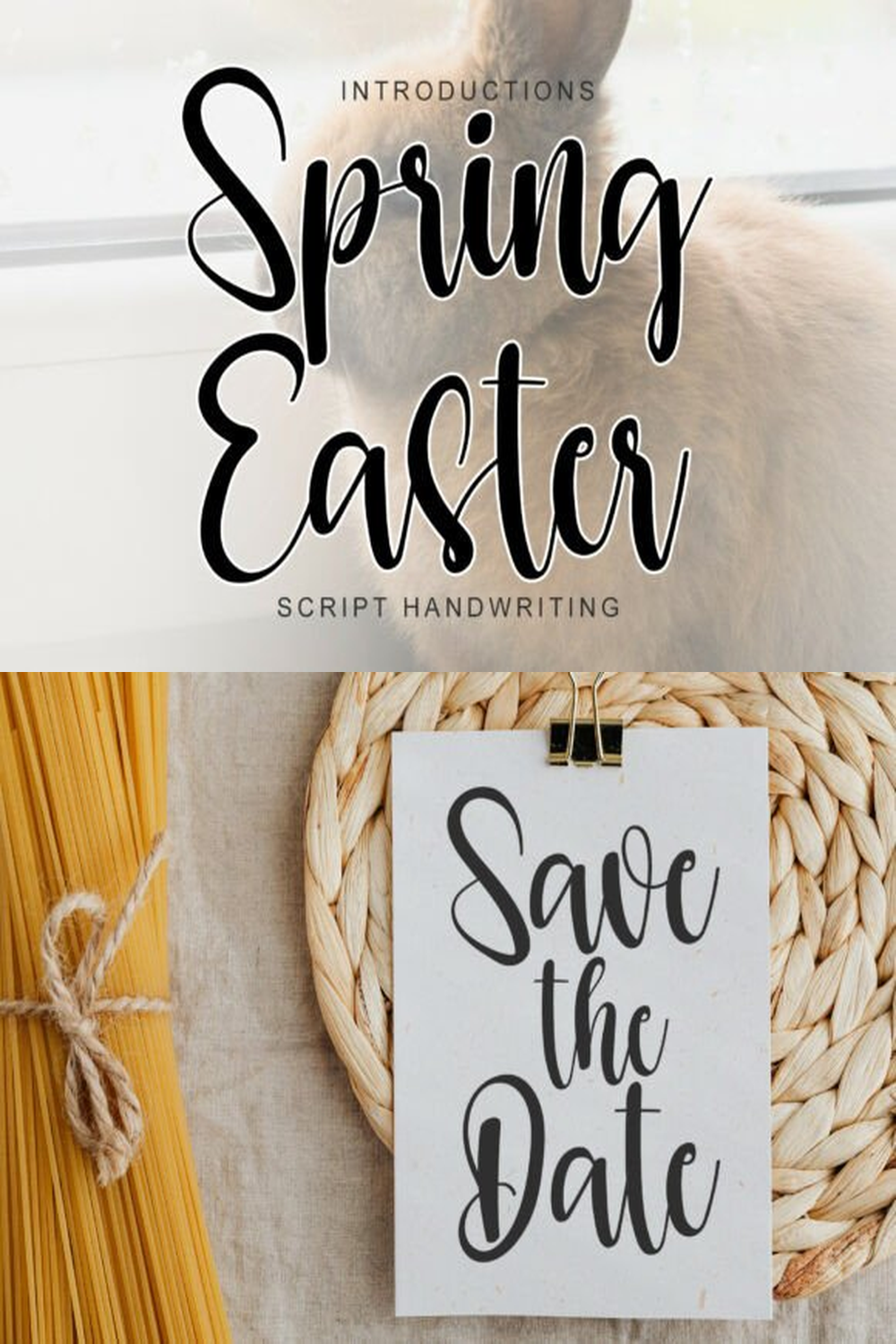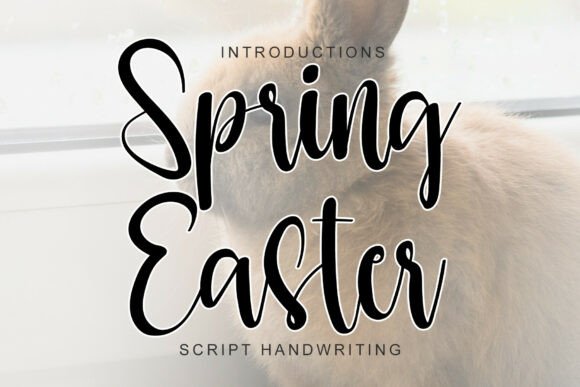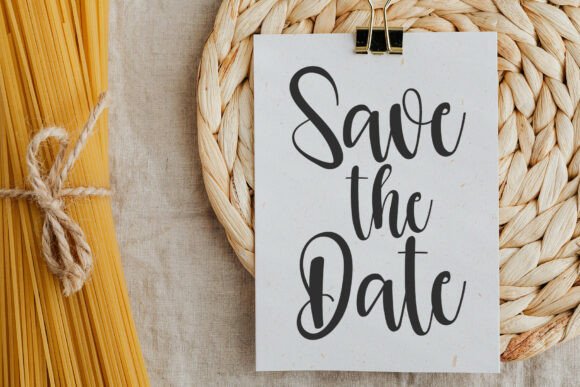
Spring Easter Font
About the Spring Easter Font
Explore the possibilities with Spring Easter Font, a font that offers both beauty and functionality. Spring Easter is a bold and elegant script handwriting font that combines fluid strokes with a commanding presence. Designed to be both graceful and strong, this font exudes confidence and sophistication, making it perfect for projects that require a font that is authoritative yet stylish. With its smooth curves and dynamic flow, Stylish Girls adds a touch of personality and power to any design.